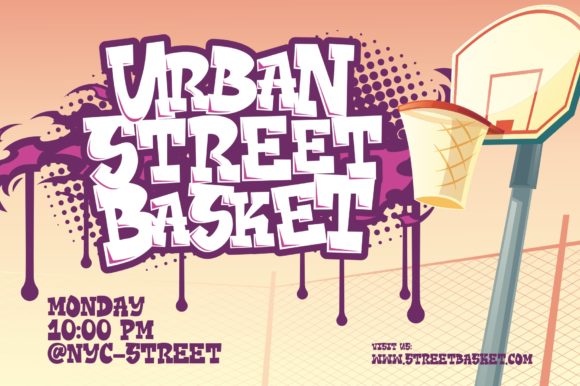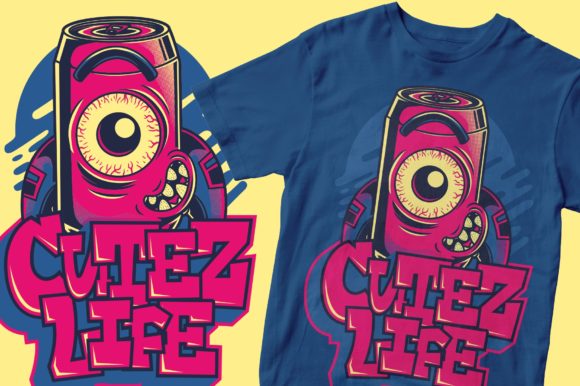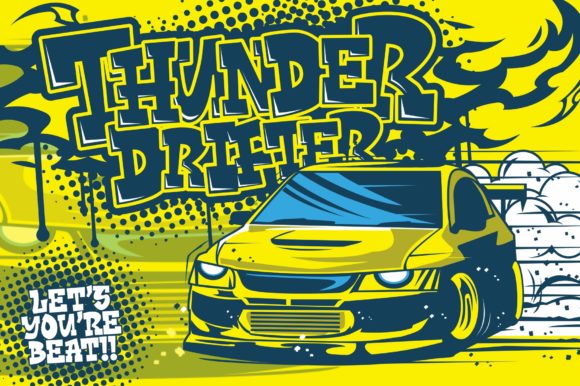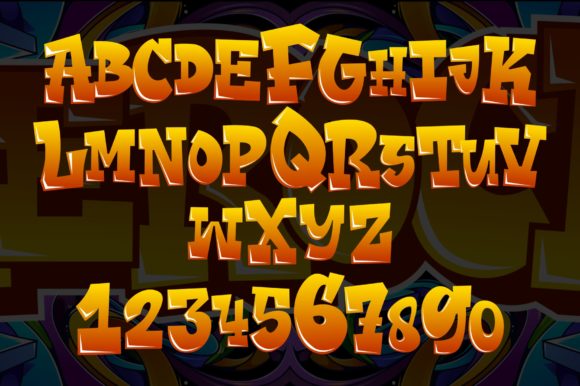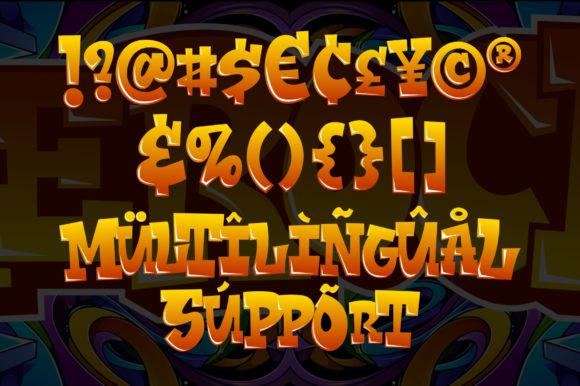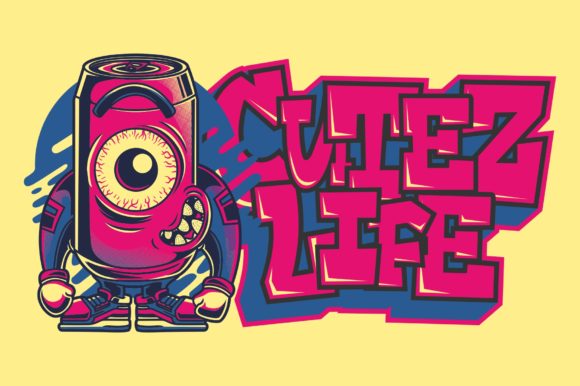
Aerock Font: Elevate Your Designs with Urban Street Art Flair
Are you tired of using the same old fonts in your designs? Do you want to add a touch of urban street art to your projects? Look no further than the Aerock Font! This bold, display font is inspired by the vibrant and edgy world of street art, and is sure to make your designs stand out from the crowd.
What is Aerock Font?
Aerock Font is a unique and stylish font that is perfect for designers and crafters who want to add a bit of urban flair to their projects. The font is inspired by the bold and colorful world of street art, and features a rugged, edgy design that is sure to grab attention.
Key Features of Aerock Font
- Bold and Display Font: Aerock Font is a bold, display font that is designed to make a statement. Its large and striking letterforms are perfect for headlines, titles, and other design elements that need to stand out.
- Inspired by Urban Street Art: The font is inspired by the vibrant and edgy world of street art, and features a design that is reminiscent of graffiti, murals, and other forms of urban art.
- Layering Options: Aerock Font comes with two font options that can be layered together to create a unique and eye-catching design. By layering the fonts, you can add depth and texture to your designs, and create a truly one-of-a-kind look.
How to Use Aerock Font in Your Designs
Aerock Font is a versatile font that can be used in a wide range of design projects. Here are a few ideas for how you can use the font in your designs:
- Headlines and Titles: Use Aerock Font to create bold and eye-catching headlines and titles. The font is perfect for adding a touch of urban flair to your designs, and can help to grab the attention of your audience.
- Posters and Flyers: Aerock Font is a great choice for posters and flyers, especially those that are promoting events or products that are related to urban culture.
- Social Media Graphics: Use Aerock Font to create social media graphics that are bold, eye-catching, and engaging. The font is perfect for creating graphics that will stand out on social media platforms.
- Branding and Packaging: Aerock Font can also be used in branding and packaging design. The font’s bold and edgy design makes it a great choice for brands that want to add a touch of urban flair to their packaging and branding materials.
Tips for Getting the Most Out of Aerock Font
Here are a few tips for getting the most out of Aerock Font:
- Experiment with Layering: Don’t be afraid to experiment with layering the two font options together. This can help to add depth and texture to your designs, and create a truly unique look.
- Play with Color: Aerock Font looks great in bold and bright colors. Don’t be afraid to experiment with different colors and color combinations to find the one that works best for your design.
- Use it Sparingly: While Aerock Font is a bold and eye-catching font, it can be overwhelming if used too much. Use it sparingly in your designs to create a focal point and draw attention to specific elements.
Aerock Font is a bold and stylish font that is perfect for designers and crafters who want to add a touch of urban street art to their projects. With its inspired design, layering options, and PUA encoding, Aerock Font is a versatile font that can be used in a wide range of design projects. By following the tips outlined above, you can get the most out of Aerock Font and create designs that are truly one-of-a-kind.